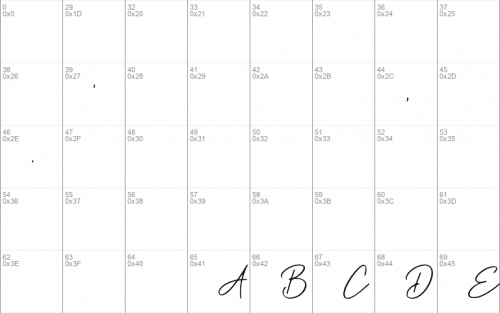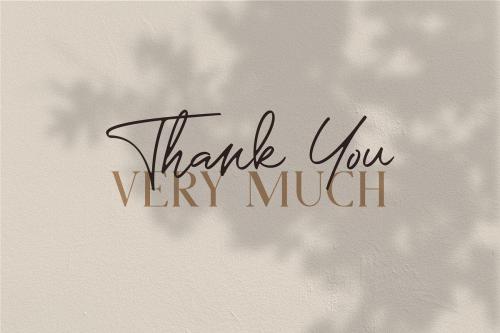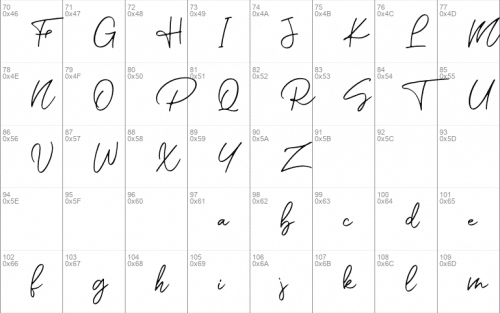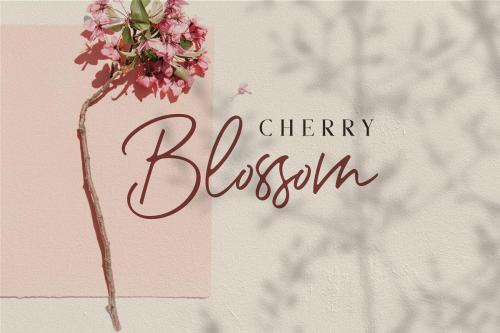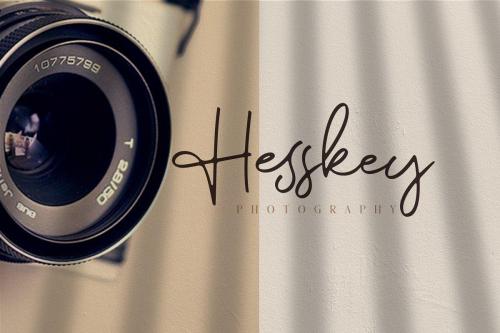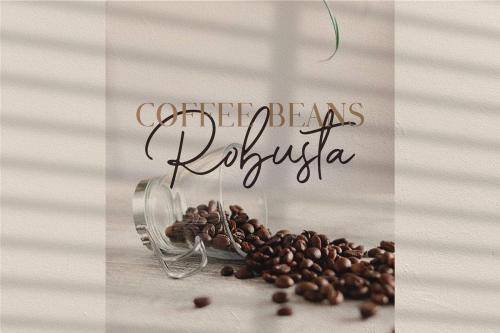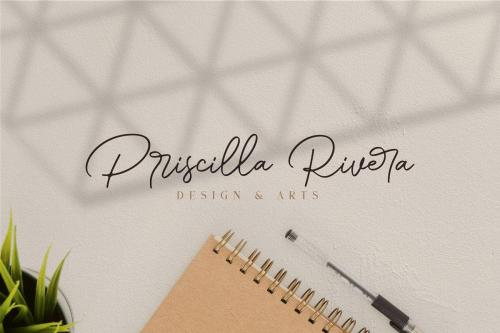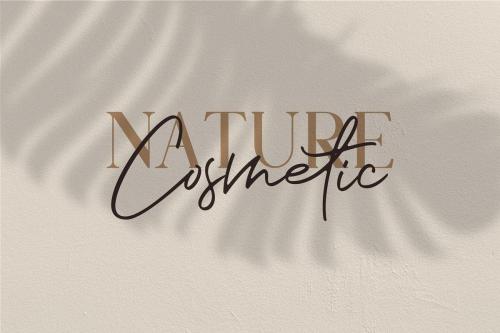
Romantic Couple is the perfect collection of fonts for any design project that requires a light and charming feel. Use it to turn any design project into a true standout!